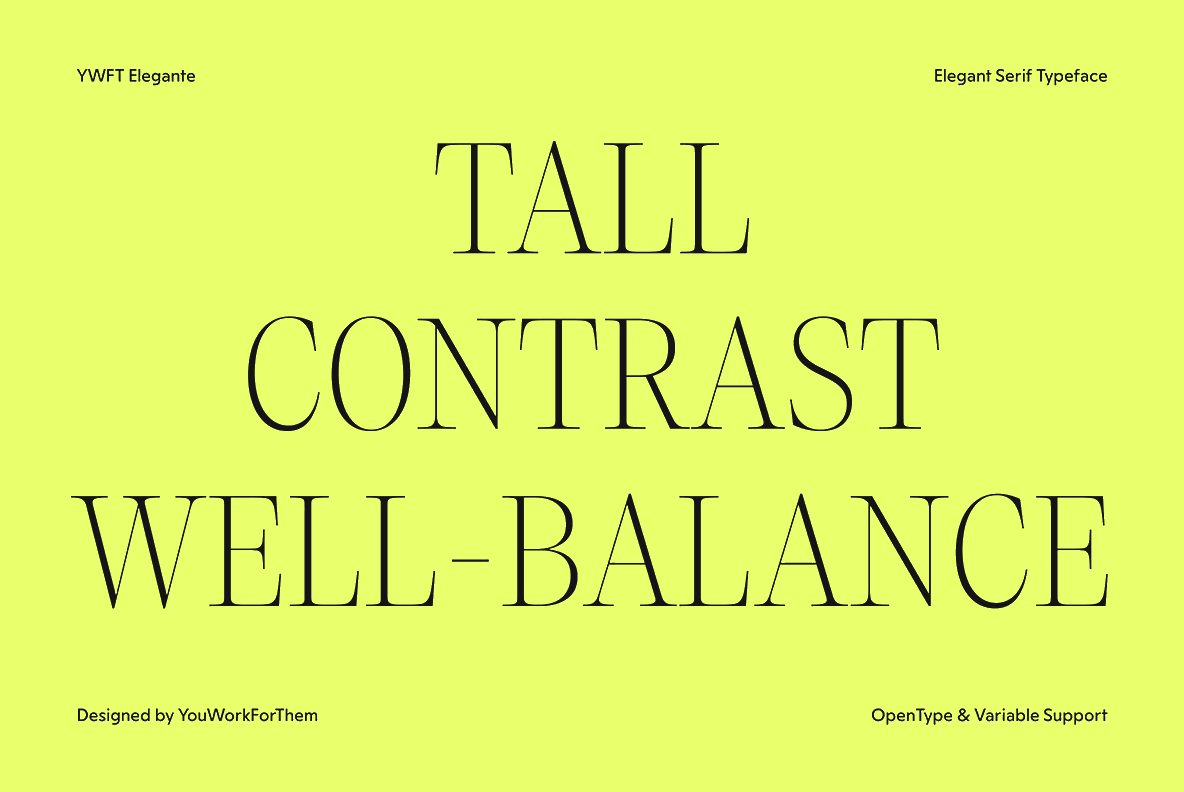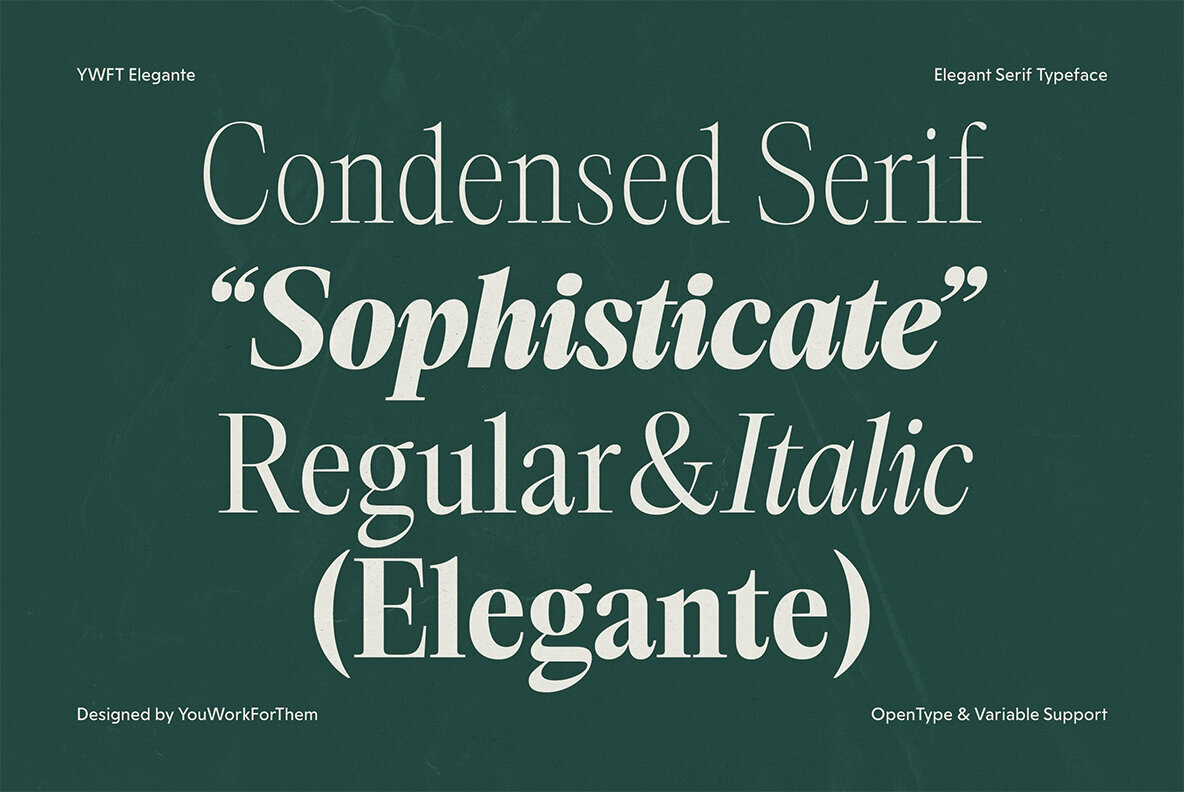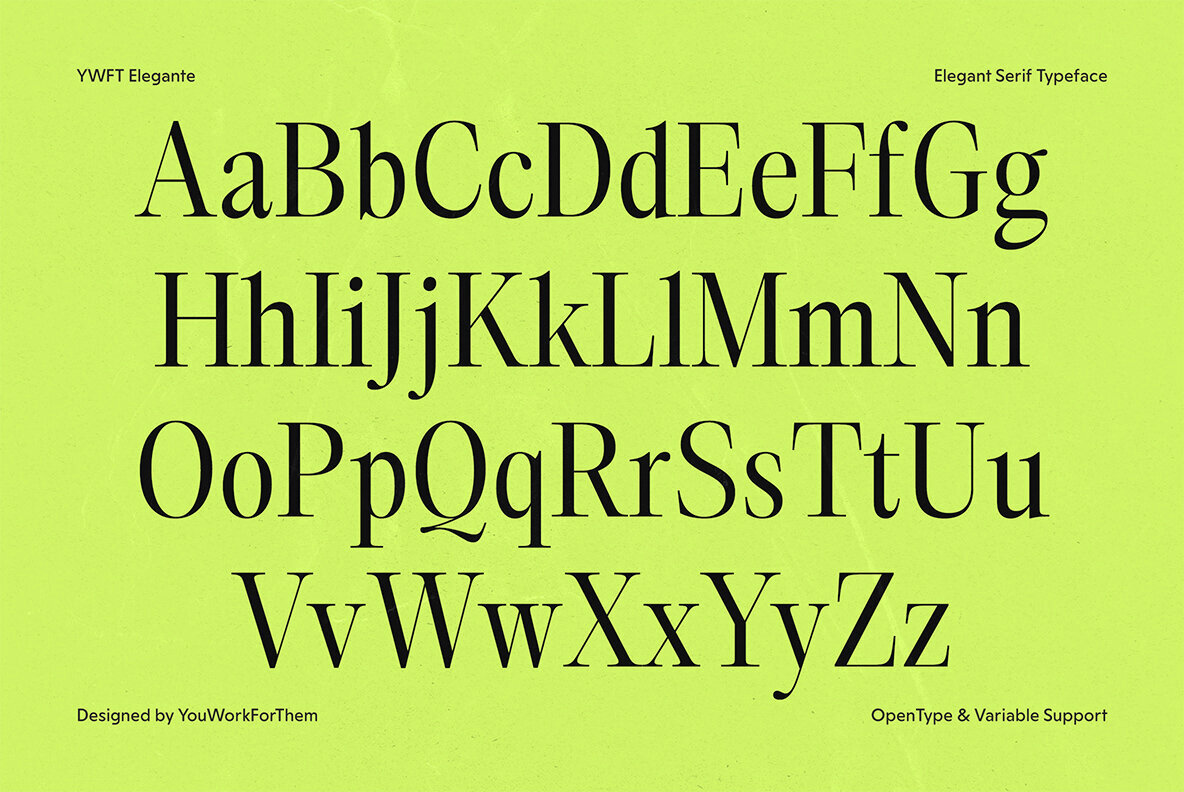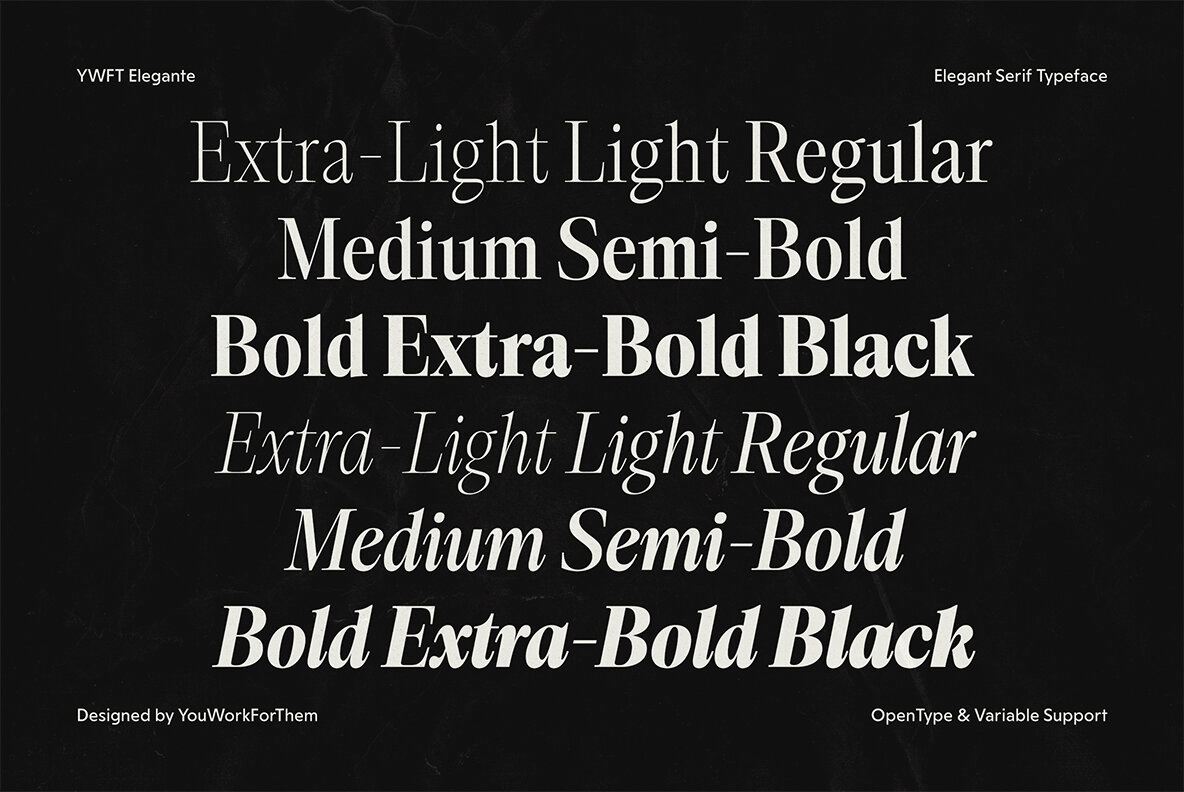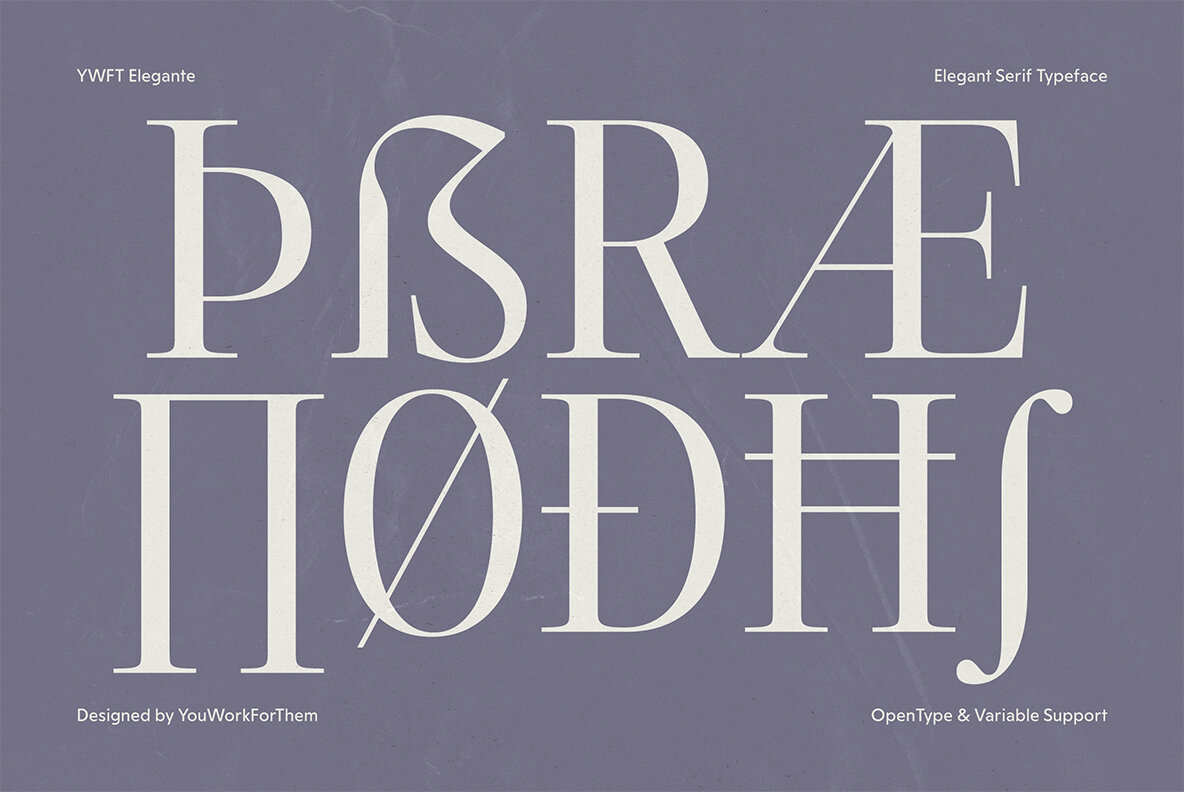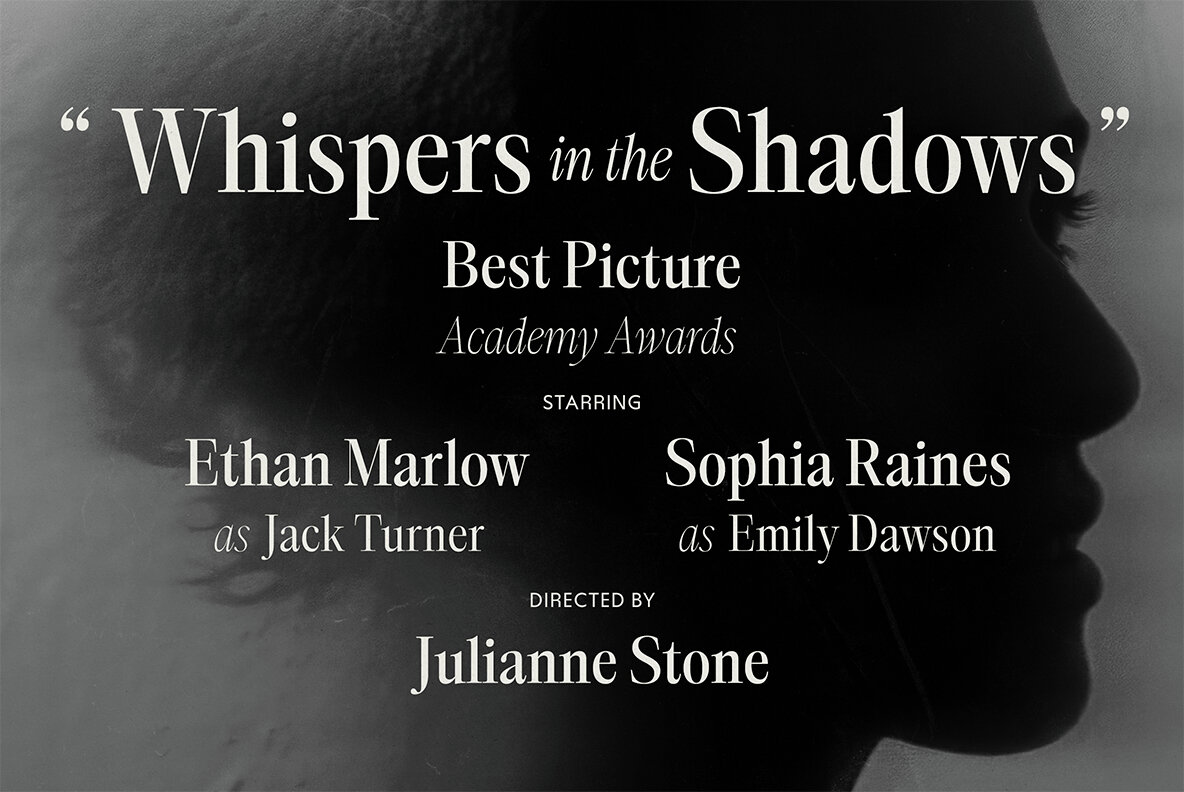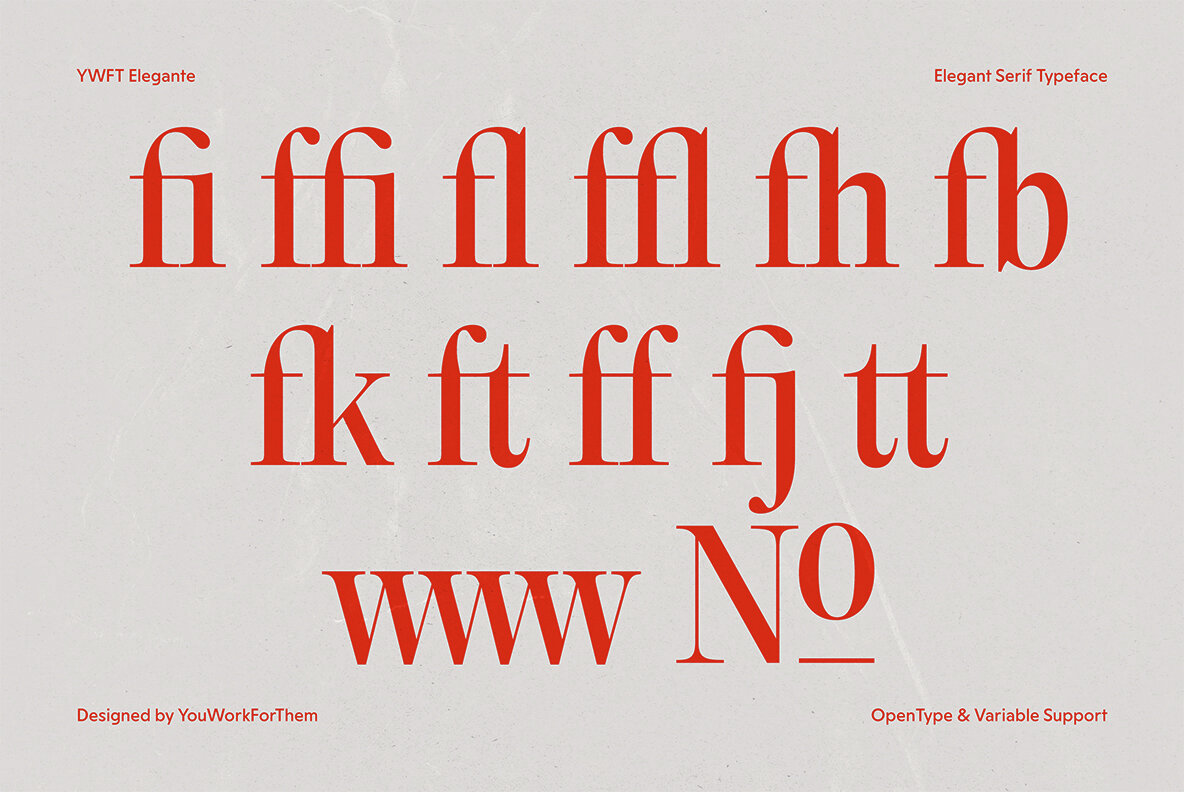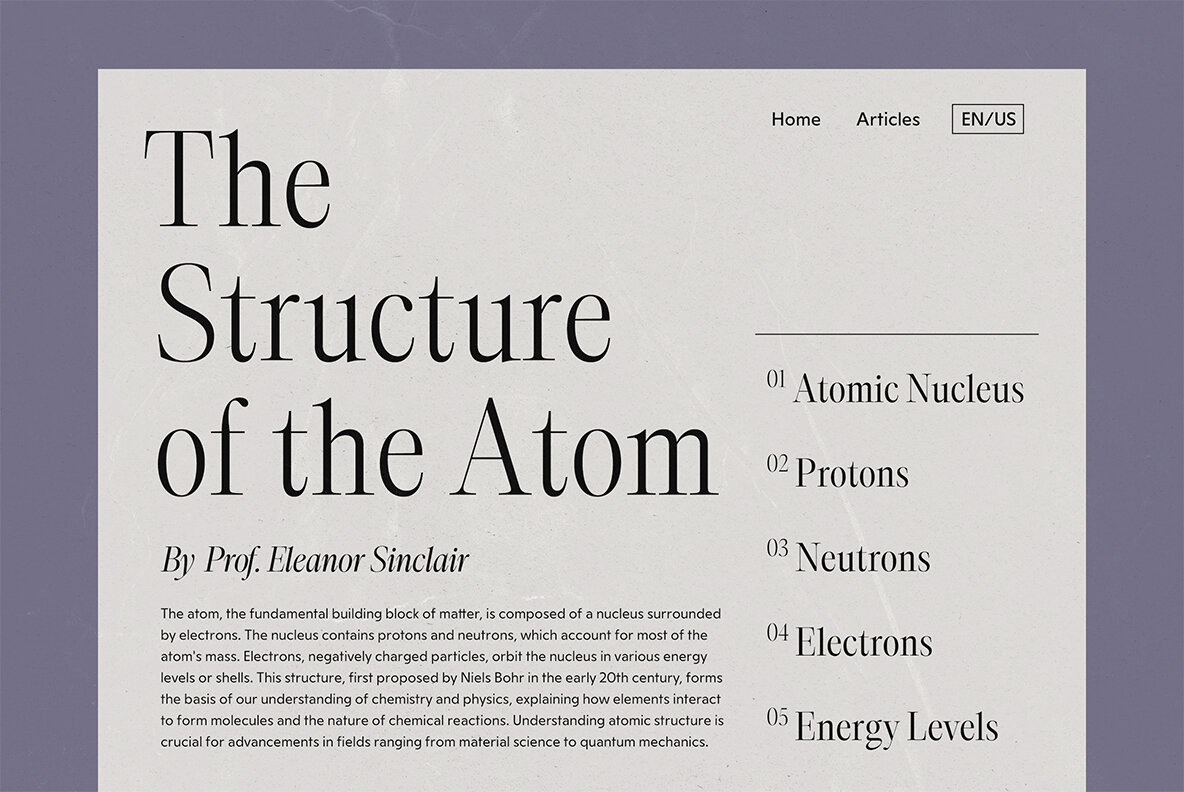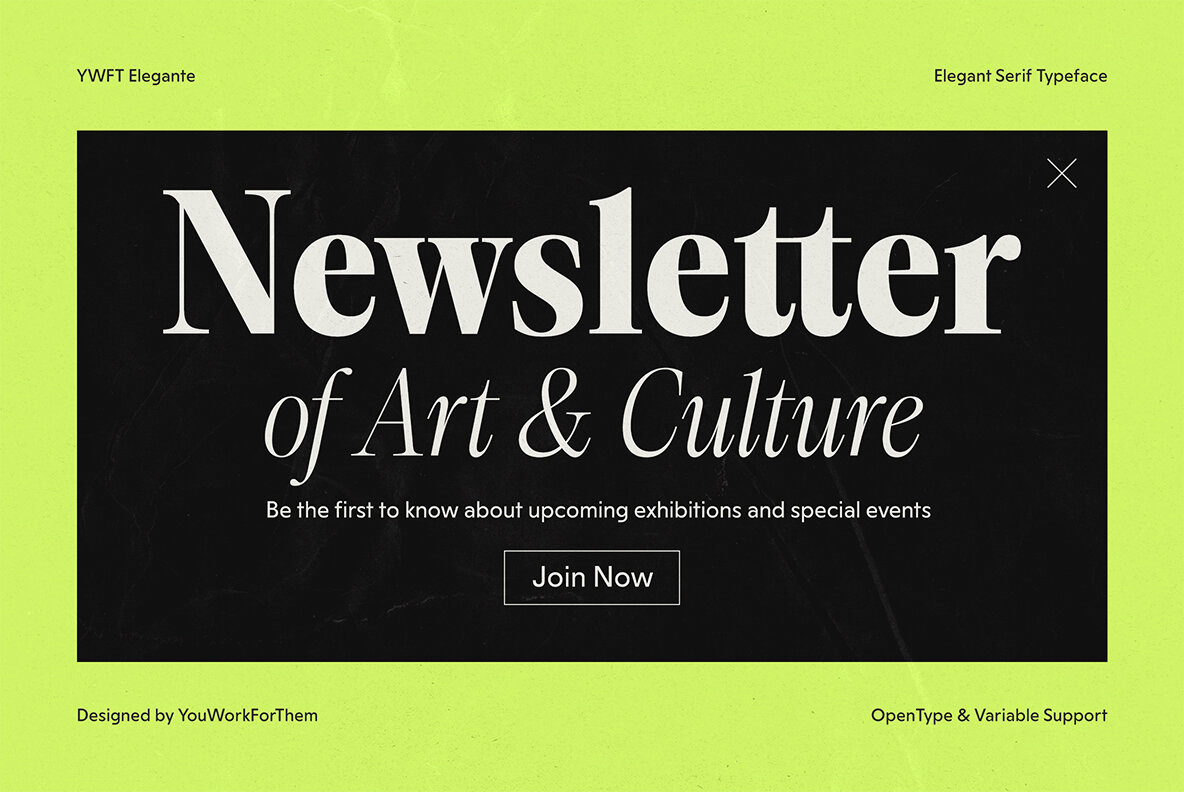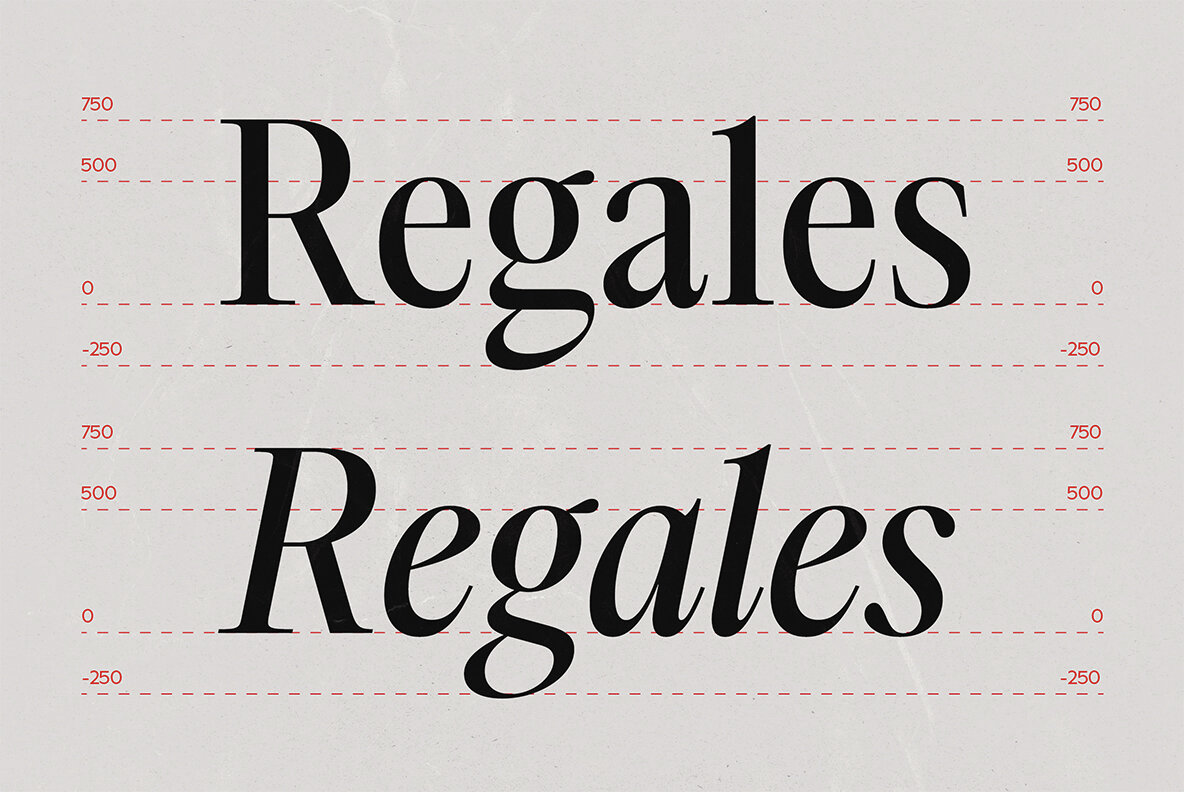
YWFT Elegante Font
YWFT Elegante is a refined serif typeface that blends classic elegance with modern versatility. Designed specifically for graphic designers and marketing firms working for high end brands, this font family caters to fashion and luxury brands seeking a high-contrast, professional typeface without subscription fees. YWFT Elegante offers a complete family of 16 fonts, covering a range of weights from Extra Light to Black, including matching italics for each style. This comprehensive collection ensures you have the right weight and style for any design project. This typeface stands out with its high contrast and well-balanced design, enhancing readability and adding visual appeal. The elegant serif design combines the timeless beauty of classic fonts with a contemporary twist, making it perfect for high-end branding and editorial use. YWFT Elegante includes advanced OpenType features such as stylistic alternates, ligatures, and variable support. These features provide the flexibility to create unique and sophisticated typographic designs. The Variable font options also allow seamless adjustments across different weights, adding further versatility to your design toolkit. This typeface is ideal for fashion and luxury brands, offering a sophisticated look for advertisements, product packaging, and branding. In the editorial and publishing world, YWFT Elegante's readability and classic style make it perfect for book covers, magazines, and layout designs. Additionally, its polished and professional appearance suits high-profile corporate identities. YWFT Elegante is an affordable, one-time purchase that comes with flexible personal and corporate licensing options. This ensures you can use the font across various projects without recurring subscription fees, making it a cost-effective choice for designers and brands. Experience the timeless sophistication and modern versatility of YWFT Elegante. Available exclusively at YouWorkForThem, this elegant serif typeface offers a flexible and affordable solution for all your design needs.YWFT Elegante: A Sophisticated Serif Typeface for Fashion and Luxury Brands
Summary of YWFT Elegante's Key Font Features
OpenType Features of This Elegant Serif Font
Ideal Uses for Elegant Serif Fonts
Why Choose YWFT Elegante Serif Font?
Perfect for: